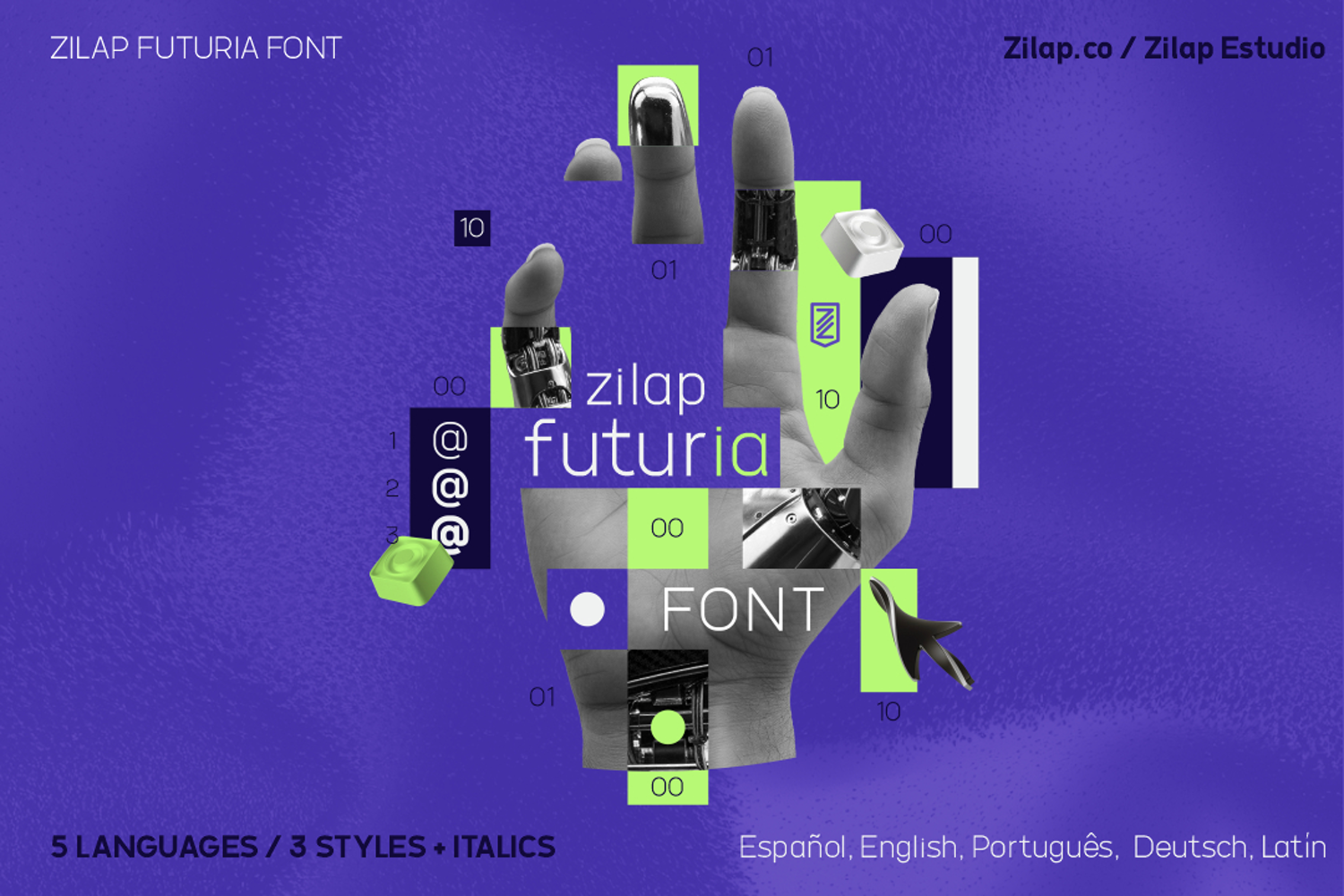
Zilap Futuria Font
Zilap Futuria is a geometric-humanist sans-serif typeface designed to unite two worlds: technological precision and the warmth of human language. Its structure combines smooth curves with clear nodes and balanced strokes that evoke digital fluidity, clean readability, and a distinctly contemporary character.
Created as a collaborative project between Zilap Estudio and LJ Design Studios, Futuria is designed for interfaces, technological environments, modern branding, and experiences where typography must convey innovation while maintaining a sense of approachability. Its design relies on a coherent visual system: geometric lines, smooth modulations, balanced proportions, and a distinctive personality that stands out in both functional texts and expressive compositions.
It offers three styles (Light, Regular and Bold) with their respective italics, support for five languages ​​and an extensive set of contemporary symbols: technological characters, programming signs, complete accents and glyphs designed for the digital age.
Zilap Futuria Font